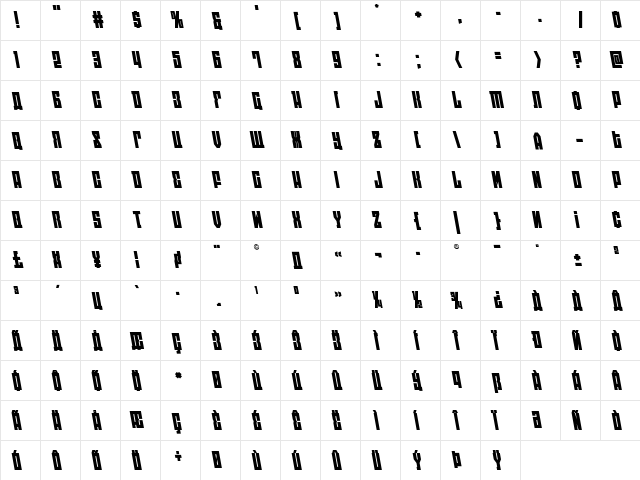
EAST-west Leftalic Italic
Design Context for EAST-west Leftalic Typeface
EAST-west Leftalic is a composed and adaptable typeface that performs quietly and consistently across a wide range of design contexts. The slanted form adds forward momentum and visual energy.
Pro Tip: Use EAST-west Leftalic for emphasis, pull quotes, and subheadings where its slanted energy can add rhythm to the layout.